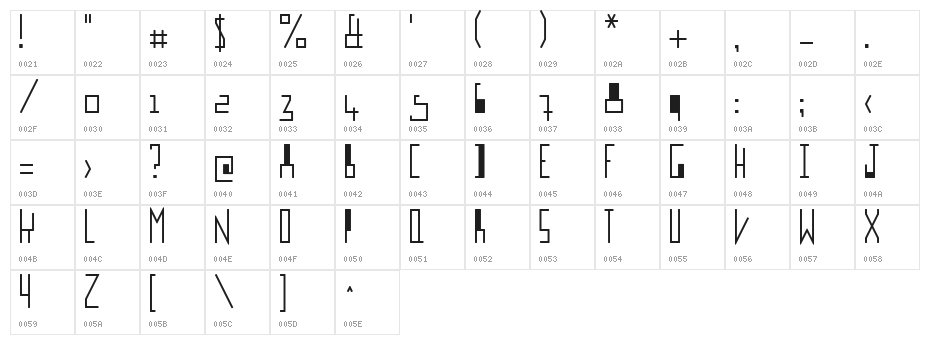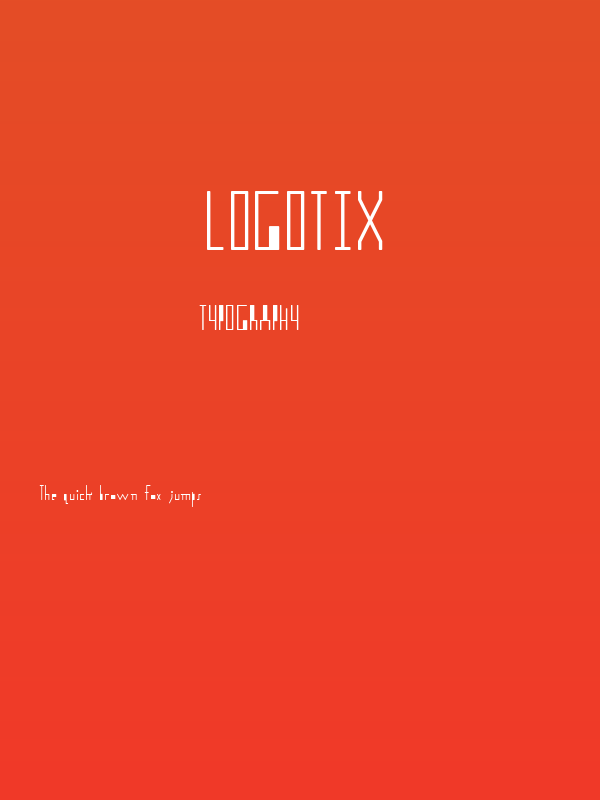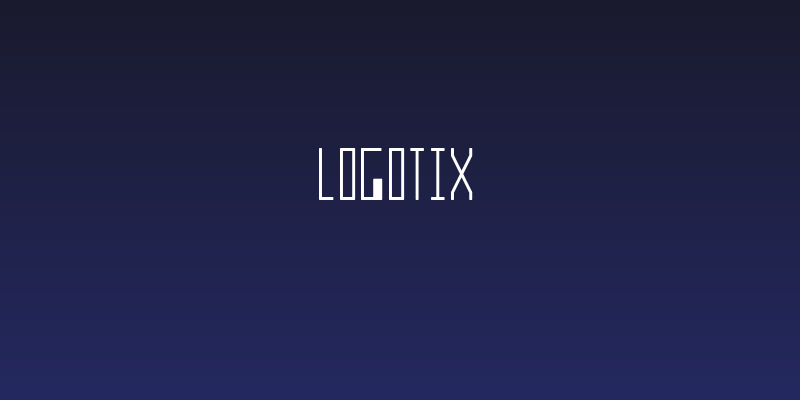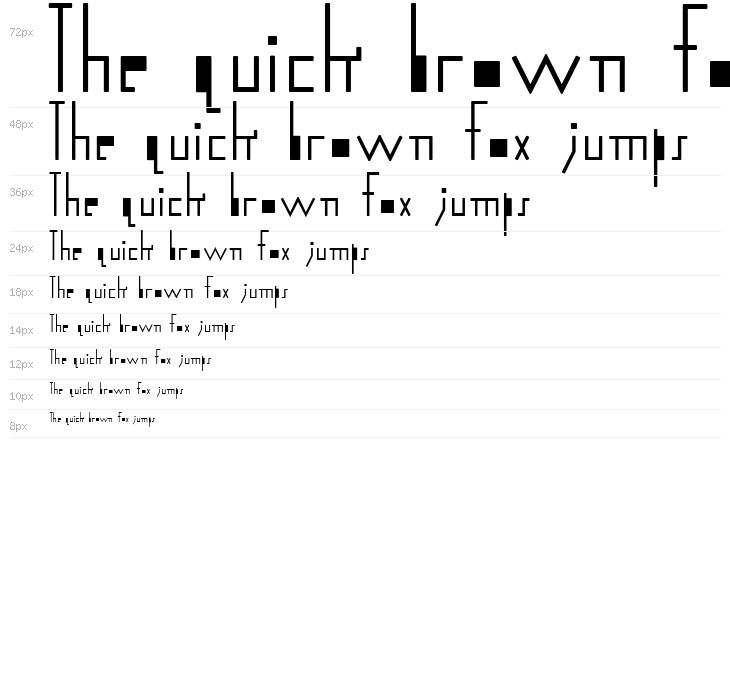
logotix Font
logotix Description
This font showcases a unique and modern design with a geometric and blocky appearance. The characters are constructed with a combination of thick and thin lines, creating a striking contrast that enhances readability while maintaining a distinct style. Uppercase letters are bold and commanding, while lowercase letters retain a consistent geometric form. Numbers and special characters follow the same design principles, ensuring uniformity across all glyphs. The overall look is futuristic and avant-garde, making it suitable for projects that require a contemporary and edgy aesthetic.
| Use Case | Logos, Headlines, Posters |
| Proposed Projects | Ideal for branding, logos, posters, and digital media that aim for a modern and innovative look. |